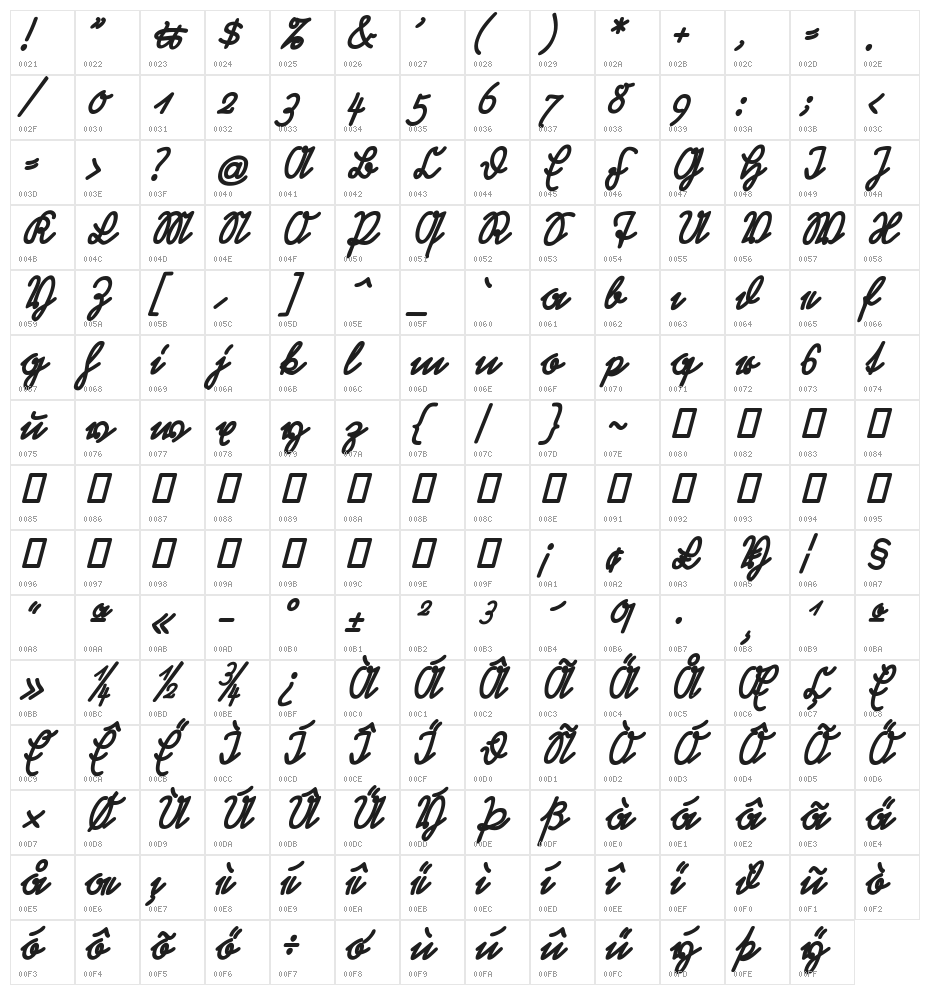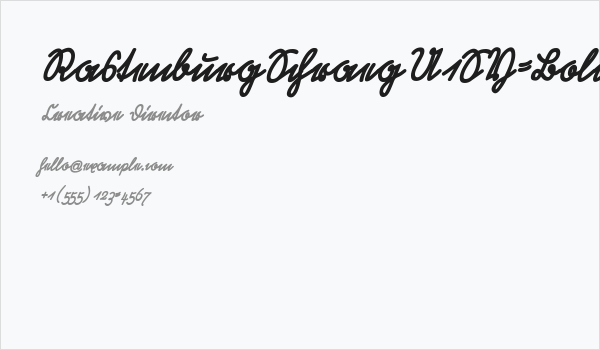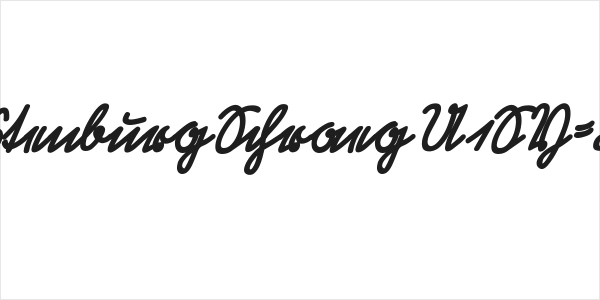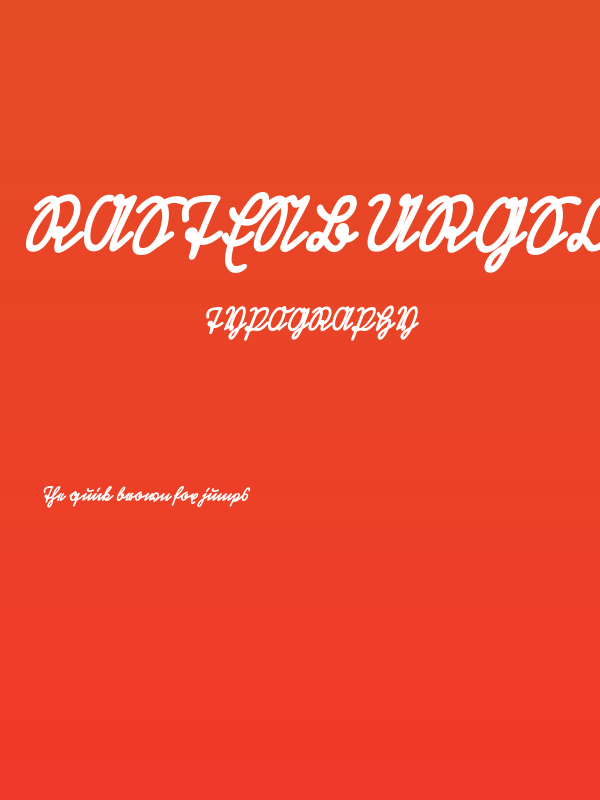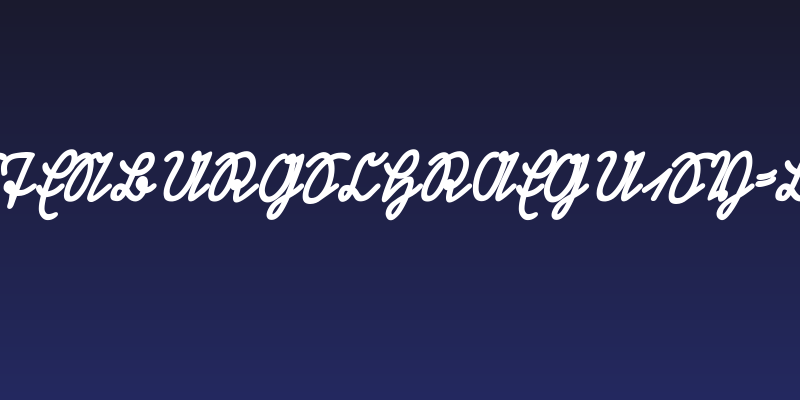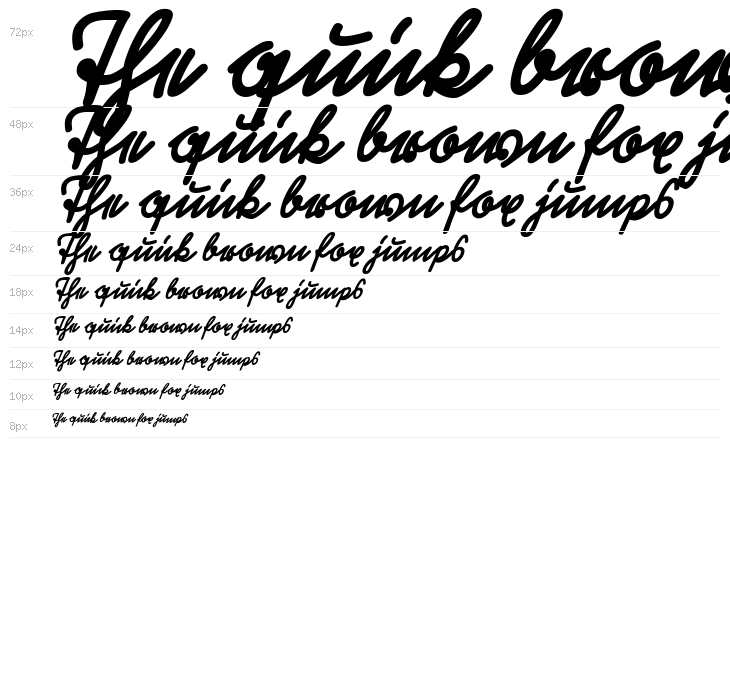
RastenburgSchraegU1SY-Bold Font
RastenburgSchraegU1SY-Bold Description
This font exhibits a bold, cursive style with a strong emphasis on fluidity and connectedness. The characters are designed with a pronounced slant, giving them a dynamic and energetic appearance. The strokes are thick and consistent, contributing to a bold presence on the page. Each letter seamlessly connects to the next, enhancing the script's flowing nature. The numerals and special characters maintain the same bold and cursive characteristics, ensuring uniformity across all glyphs. This font is ideal for creating impactful and elegant designs that require a touch of sophistication and flair.
Use CaseHeadlines, Logos, Invitations
Proposed ProjectsIdeal for wedding invitations, elegant branding, greeting cards, and decorative headlines.